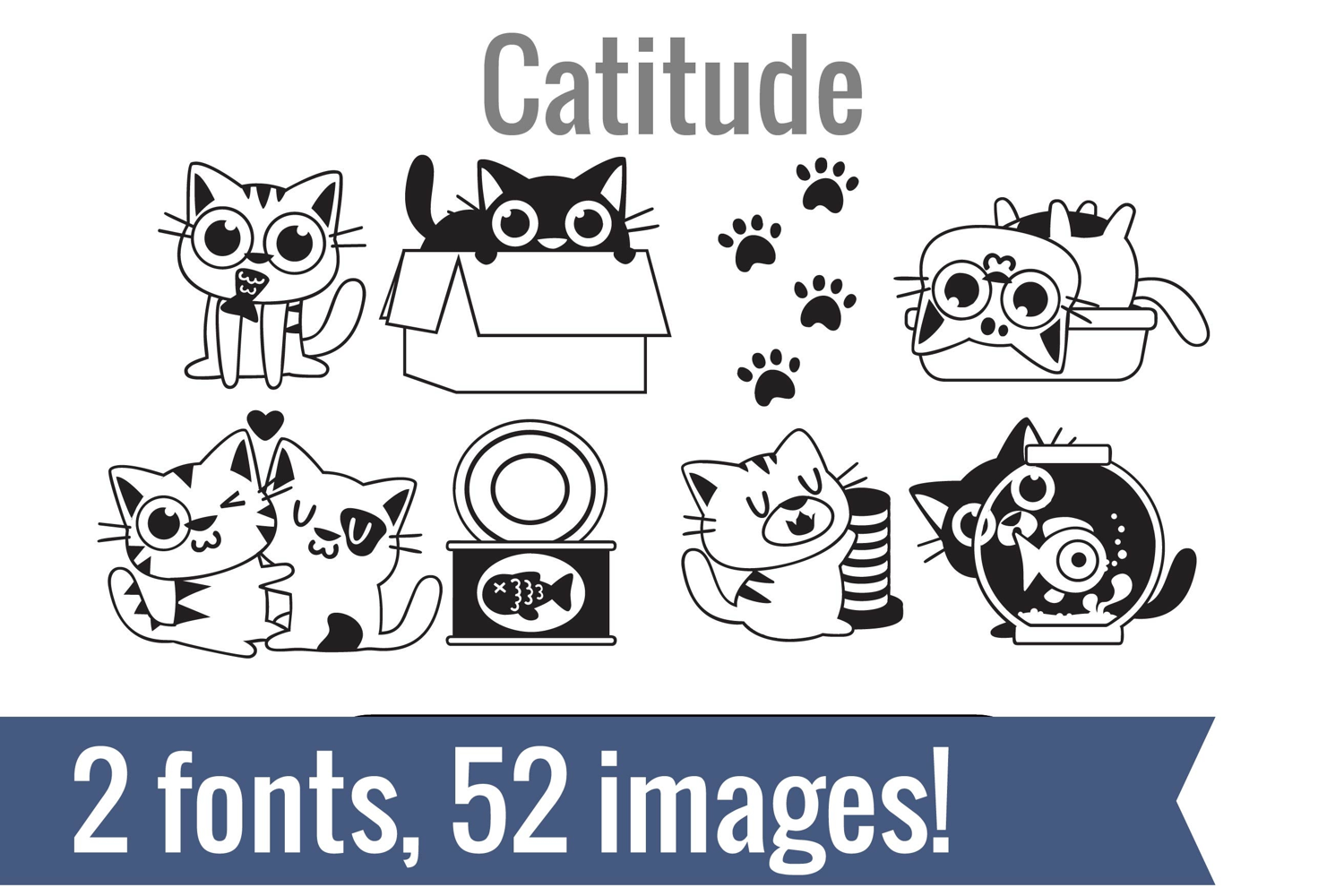
Catitude Dingbats
Unlock endless creativity with two perfectly coordinated fonts! There are two dingbat fonts in this bundle, both sporting little cats. One perfect for any time and any cat lover and the other has an emphasis on Halloween.
Tired of spending hours searching for the perfect icons and graphics? Our dingbat fonts put dozens of cohesive, scalable designs at your fingertips. Simply install the font and type a letter to produce a pre-made image. From charming seasonal icons for holiday cards to intricate frames for your invitations, these fonts let you create stunning designs for vinyl cutting, paper crafts, planners, and more.